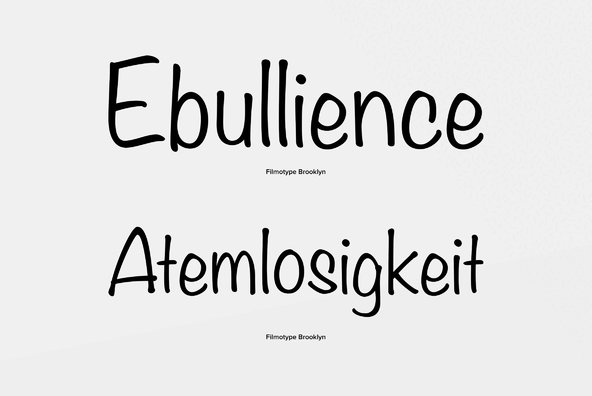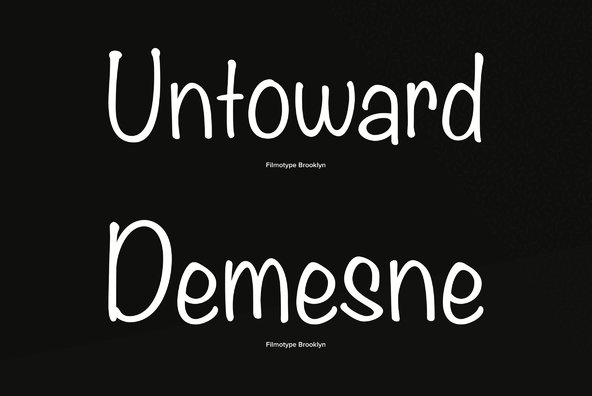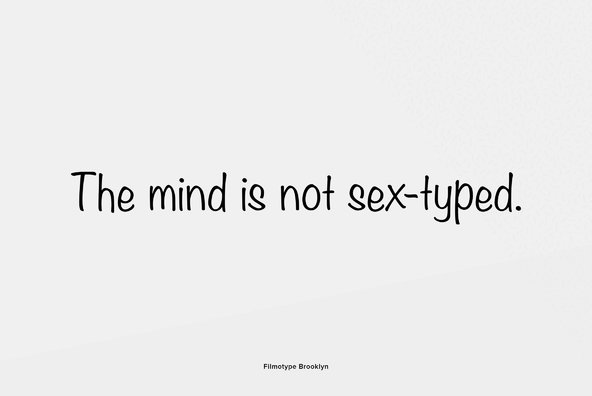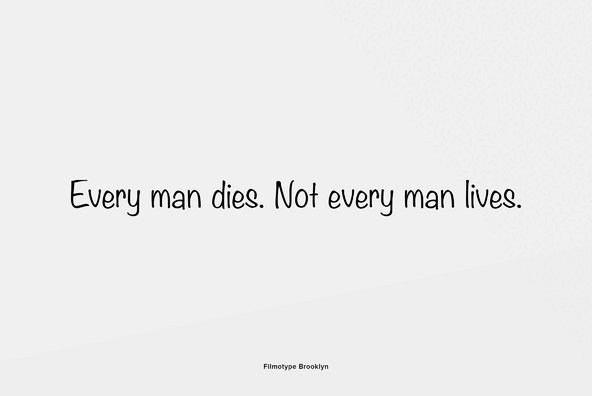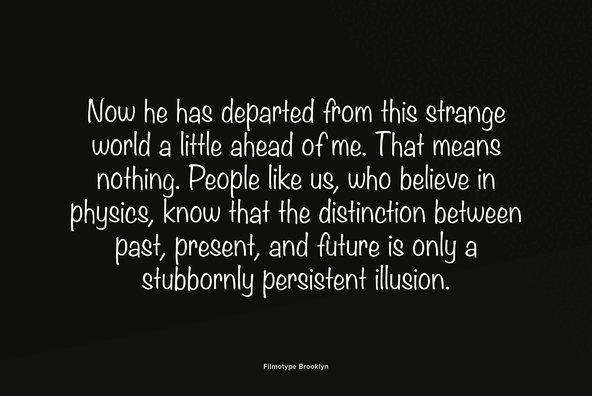
Filmotype Brooklyn
Filmotype Brooklyn picks off where her younger sister Filmotype Alice left off. Without the ability to embolden type photographically using its machine, Filmotype Introduced a customer requested bold weight of Filmotype Alice in the late 1950s.
Filmotype Brooklyn is not a simple mechanical bolding done using font making software, it was traced from scratch using the original font filmstrips and includes a full international character compliment, automatic fractionals, ordinals, and a host of alternate characters in dynamic OpenType format.